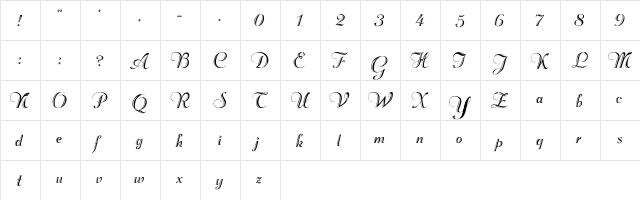
Beachman-Script Regular
Design Context for Beachman-Script Typeface
Beachman-Script flows with the natural rhythm of handwritten lettering, making it ideal for designs that call for warmth and personal expression.
Font Pairing: Combine Beachman-Script with a simple geometric sans for maximum contrast — the tension between flowing curves and clean structure is a classic typographic pairing.
Pro Tip: Pair Beachman-Script with a clean sans-serif for supporting text. The contrast between fluid script and geometric structure creates an elegant typographic hierarchy.